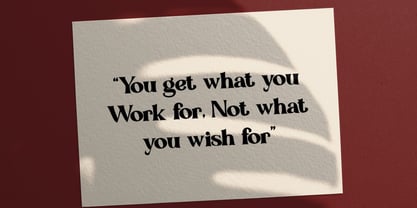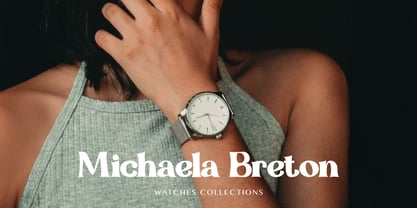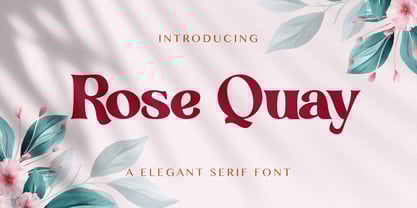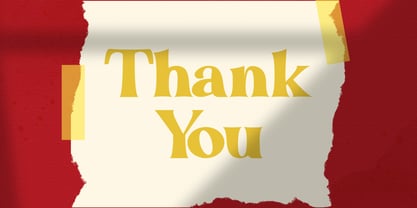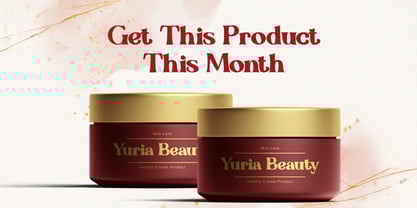
The Rose Quay Font Family was designed by Virgiawan Listanto and published by Stringlabs Creative Studio. Rose Quay contains 1 styles. More about this family
Rose Quay is a refined serif font that embodies grace, elegance, and quiet strength. With its delicate serifs, smooth curves, and balanced proportions, this font brings a timeless sophistication to any design perfect for those seeking a subtle yet striking visual identity. Ideal for branding, editorial, or special occasion projects, Rose Quay adds a touch of elegance that feels both modern and classic.
Designers: Virgiawan Listanto
Foundry: Stringlabs Creative Studio
Rose Quay